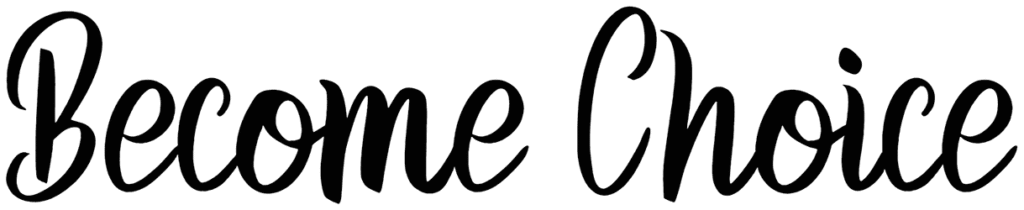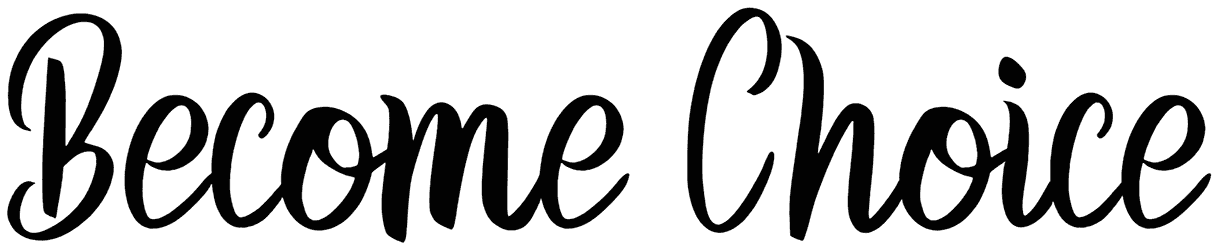
Become Choice Font
The use of the handwritten font, Become Choice, can add a unique look to your digital projects and give them a more professional appearance.
The magnificent form of this script font makes it a popular choice for use in ads, flyers, fashion, and apparel industries. Those looking to incorporate a more organic feel into their next project will find everything they need and more at the RB script font store.